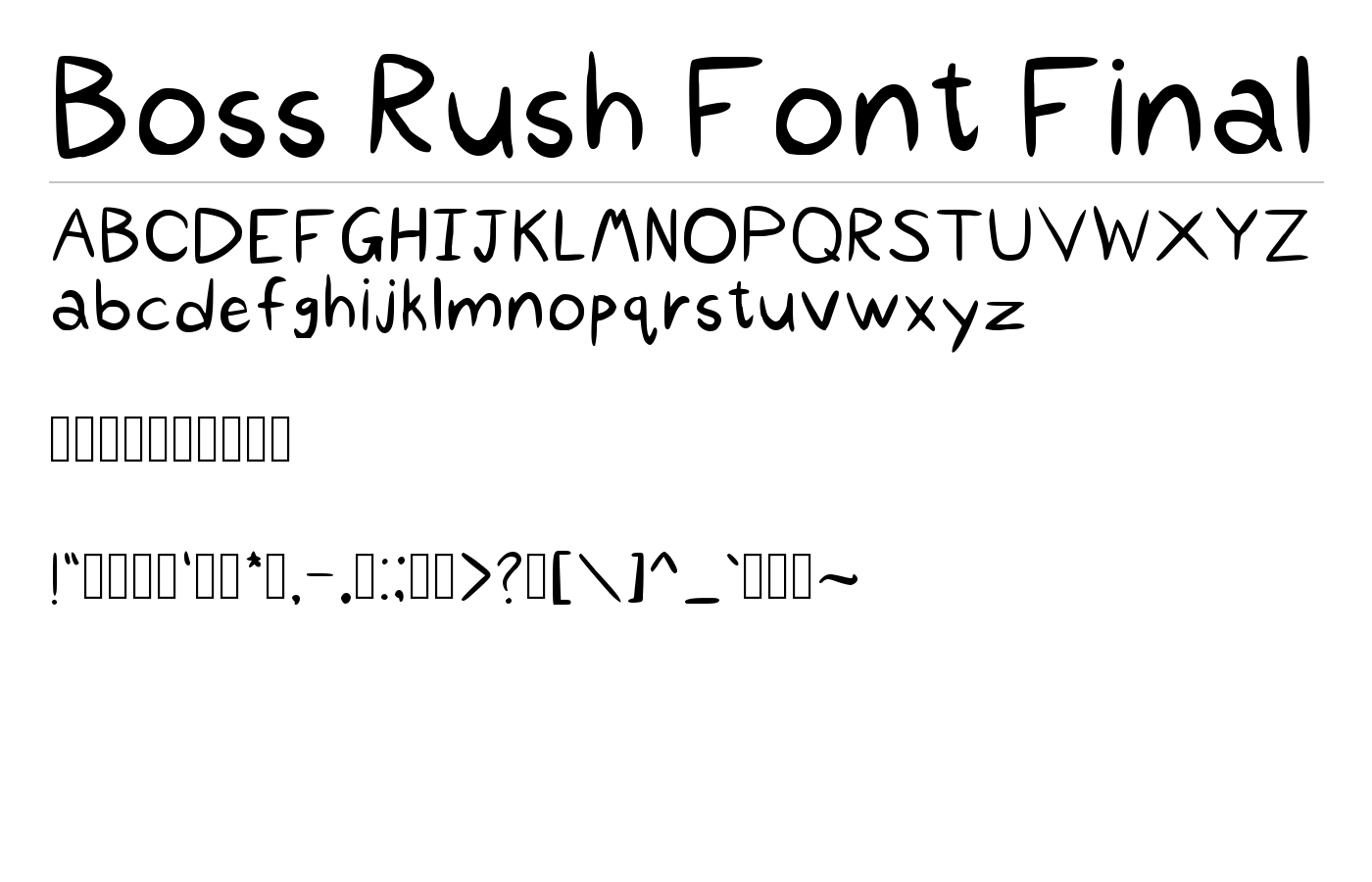
Boss Rush Font Final is a casual, hand-drawn sans serif typeface with a playful and approachable personality. Its irregular strokes and slightly uneven shapes give it a friendly, informal vibe, making it ideal for creative projects, children's materials, and fun branding. This font works well in headlines, posters, and designs needing a warm, personalized touch.